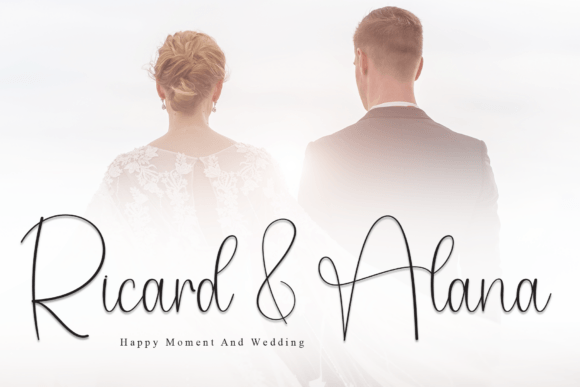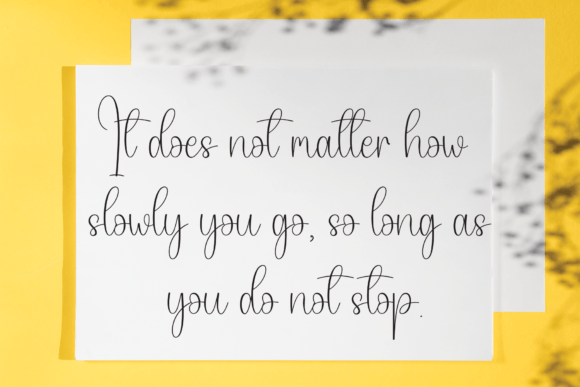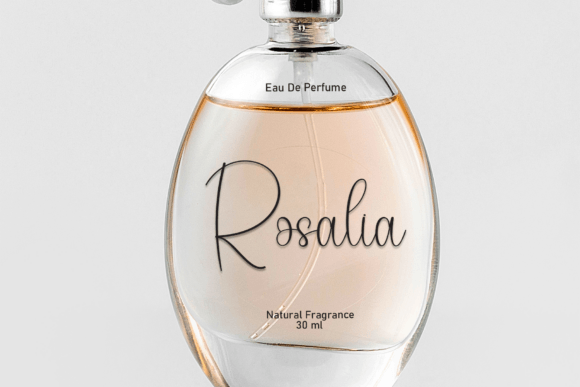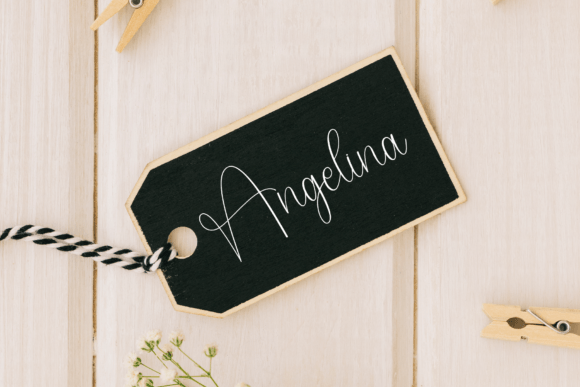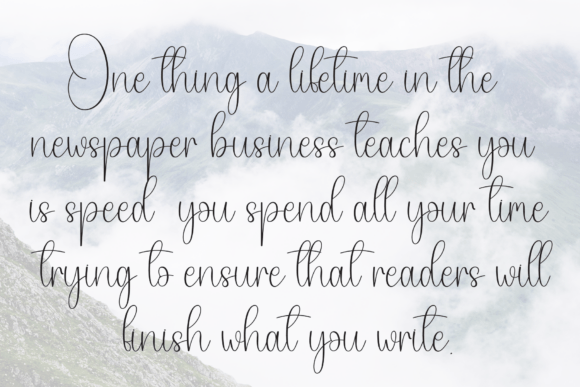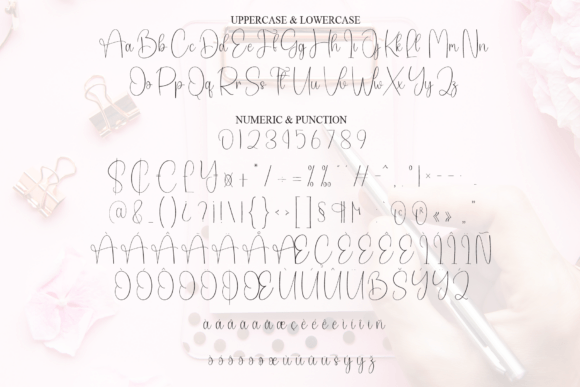
Adding a Touch of Elegance to Your Designs
Have you ever been browsing through your favorite fashion magazine, and you’re struck by the beautiful handwritten font used in the headlines? That’s exactly what happened to me last week, and I knew right then that I needed to find that font and make it a part of my design repertoire.
After some digging, I stumbled upon the Barbie Signature Font, a stunning, elegant handwritten font that’s sure to add a touch of class to any design. Its smooth, delicate lines evoke the feeling of stylish handwriting, making it perfect for adding a personal and classy touch to your designs.
As a designer, you know how much a well-chosen font can elevate a design from good to great. The Barbie Signature Font is a valuable addition to any designer’s toolkit, offering a unique and feminine feel that’s sure to set your designs apart.
Barbie Signature Font Key Features
- Font Family: The Barbie Signature Font is a custom-designed font family, carefully crafted to evoke the iconic style of the Barbie brand.
- Unique Characteristics: The Barbie Signature Font features a distinctive, cursive script with a playful, whimsical feel, perfect for creating eye-catching headlines and titles.
Designer Review: Barbie Signature Font
At first glance, the Barbie Signature Font seems to be a playful and whimsical font, perfect for creating a fun and youthful vibe. ✨ It’s clear that the designers aimed to capture the essence of the iconic Barbie brand, and in that sense, they’ve succeeded. The font’s rounded edges and curves evoke a sense of femininity and sweetness, making it ideal for use in children’s products, fashion branding, or any other context where a touch of playfulness is needed.
However, there are some limitations to consider. ⚠️ For one, the font may be too cutesy for some brands, and its overly rounded forms may not be suitable for more serious or professional applications. Additionally, the font’s limited character set and lack of support for certain languages may be a concern for some designers. Furthermore, the font’s size and weight variations may not be as extensive as some designers would like, which could limit its versatility.
- Playful and whimsical design
- Rounded edges and curves
- Ideal for children’s products, fashion branding, or other playful contexts
- Limited character set and language support
- Not suitable for serious or professional applications
For the most out of the Barbie Signature Font, use it for:
– Fashion and beauty branding
– Children’s products and packaging
– Whimsical and playful designs
– Adding a touch of femininity and glamour
Remember to use the font consistently throughout your design to create a cohesive look.